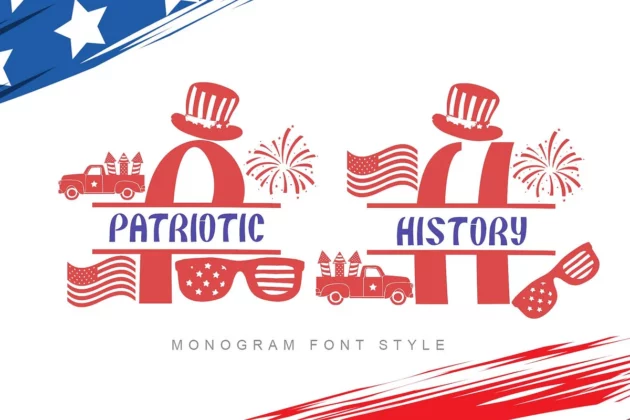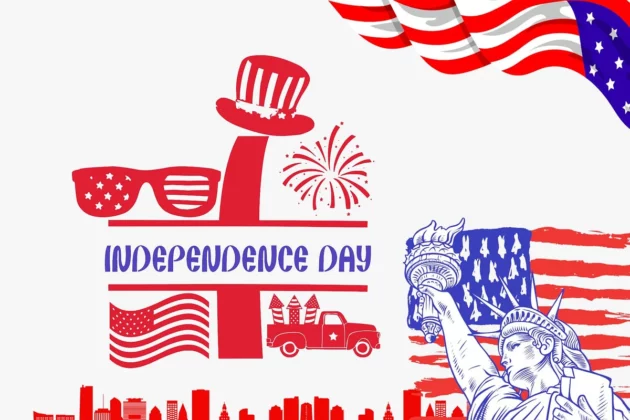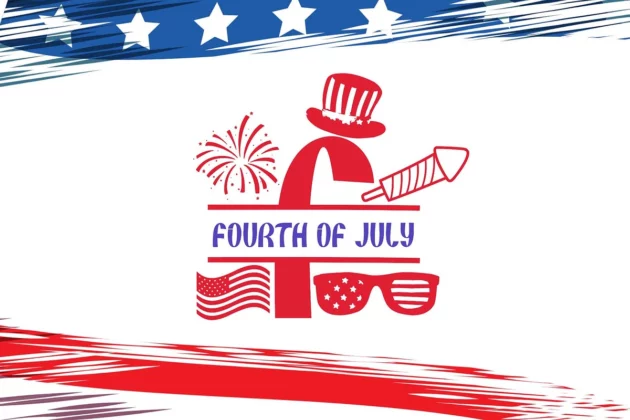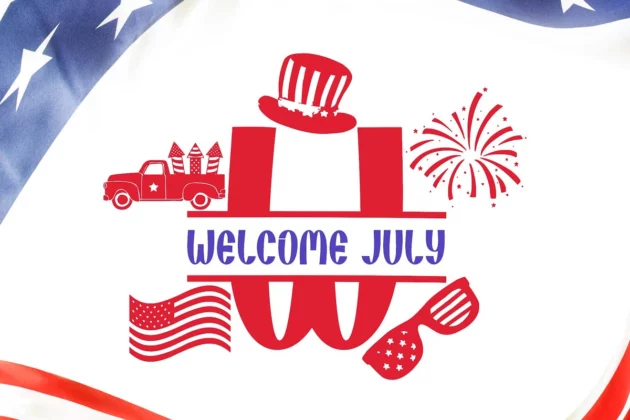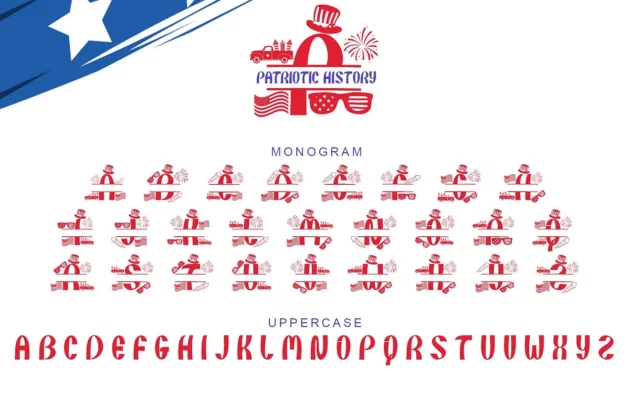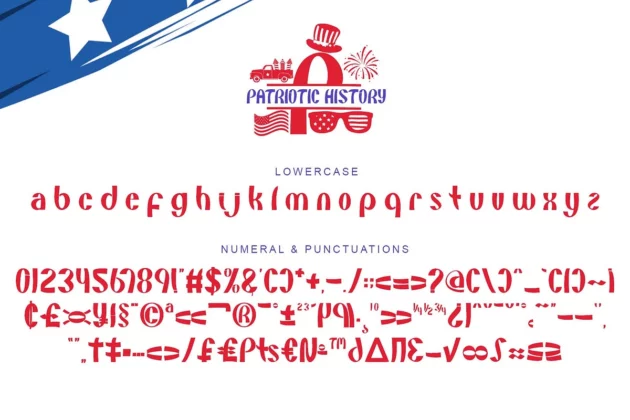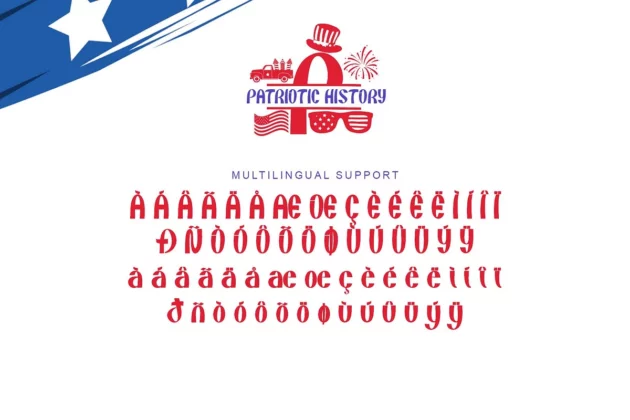
Patriotic History
About Patriotic History Font
“Patriotic History” is an elegant and unique monogram font. This font is equipped with uppercase, lowercase, monogram, numeral, punctuations and multilingual support. It is very suitable for 4th of July, patriotic, christmas, summer, banner, branding, logo, sticker, print and others.